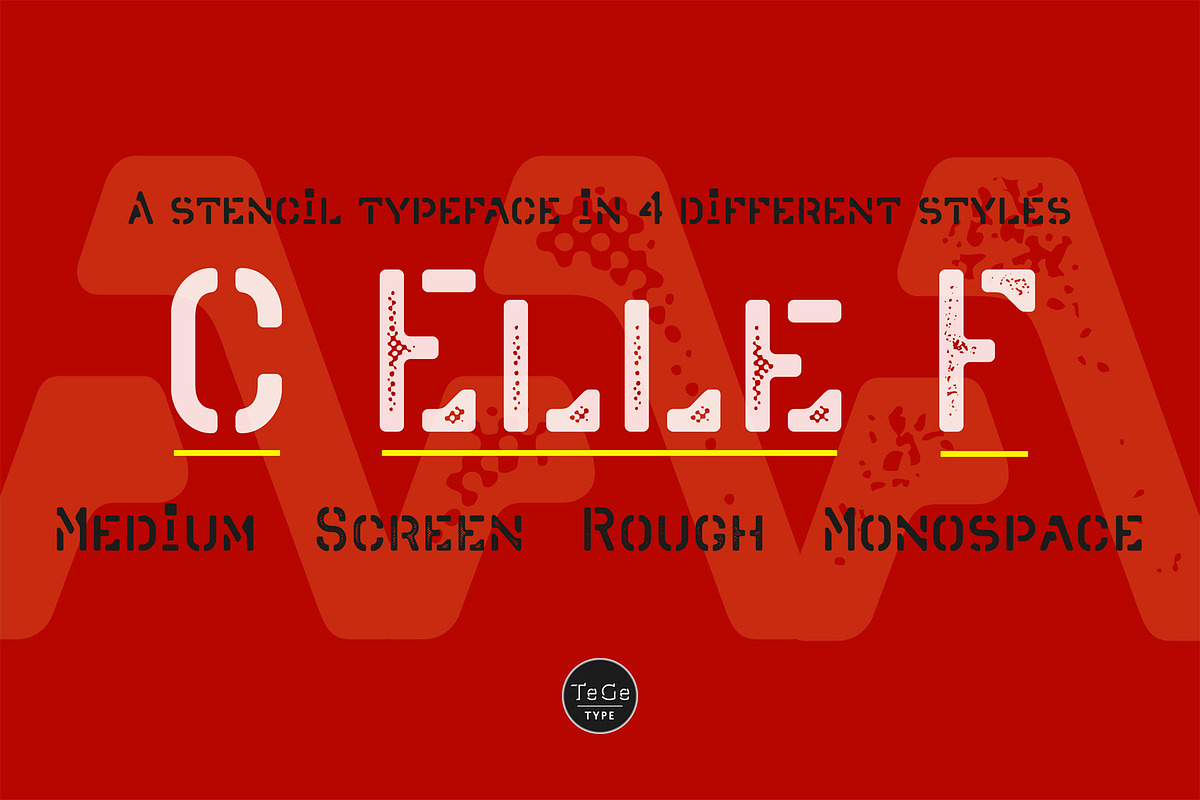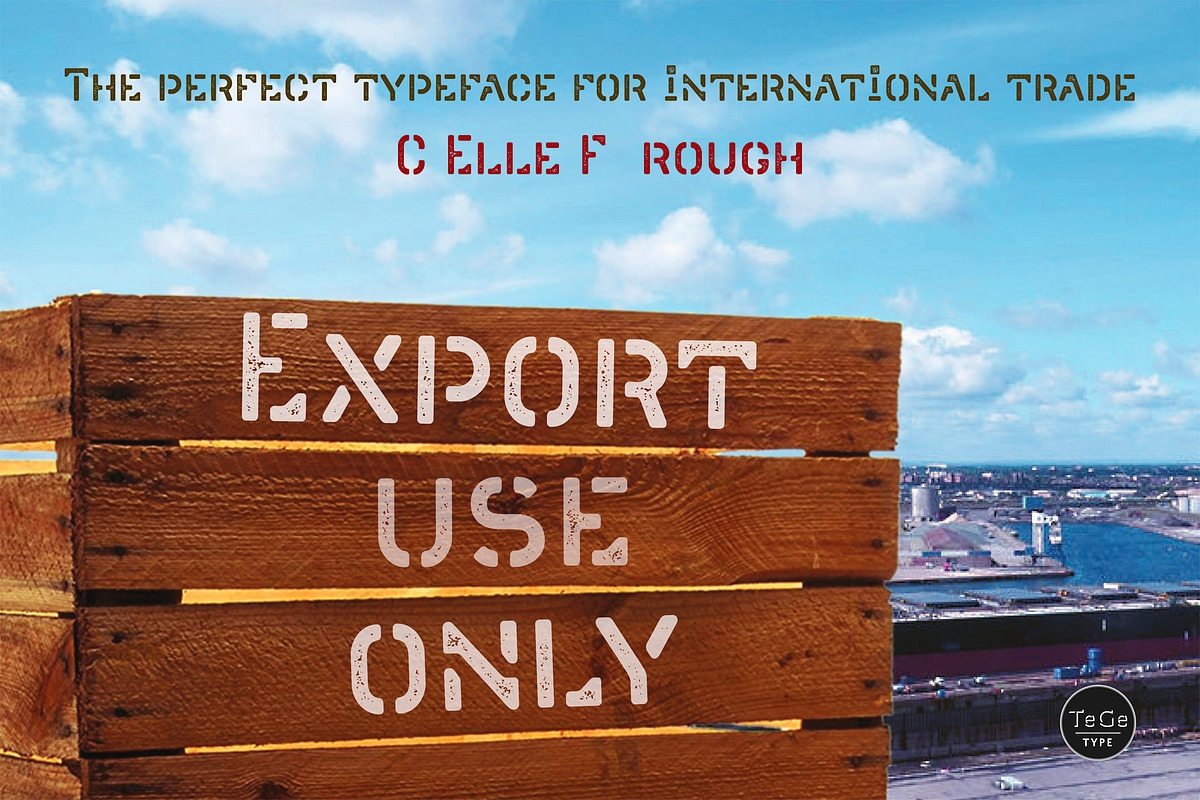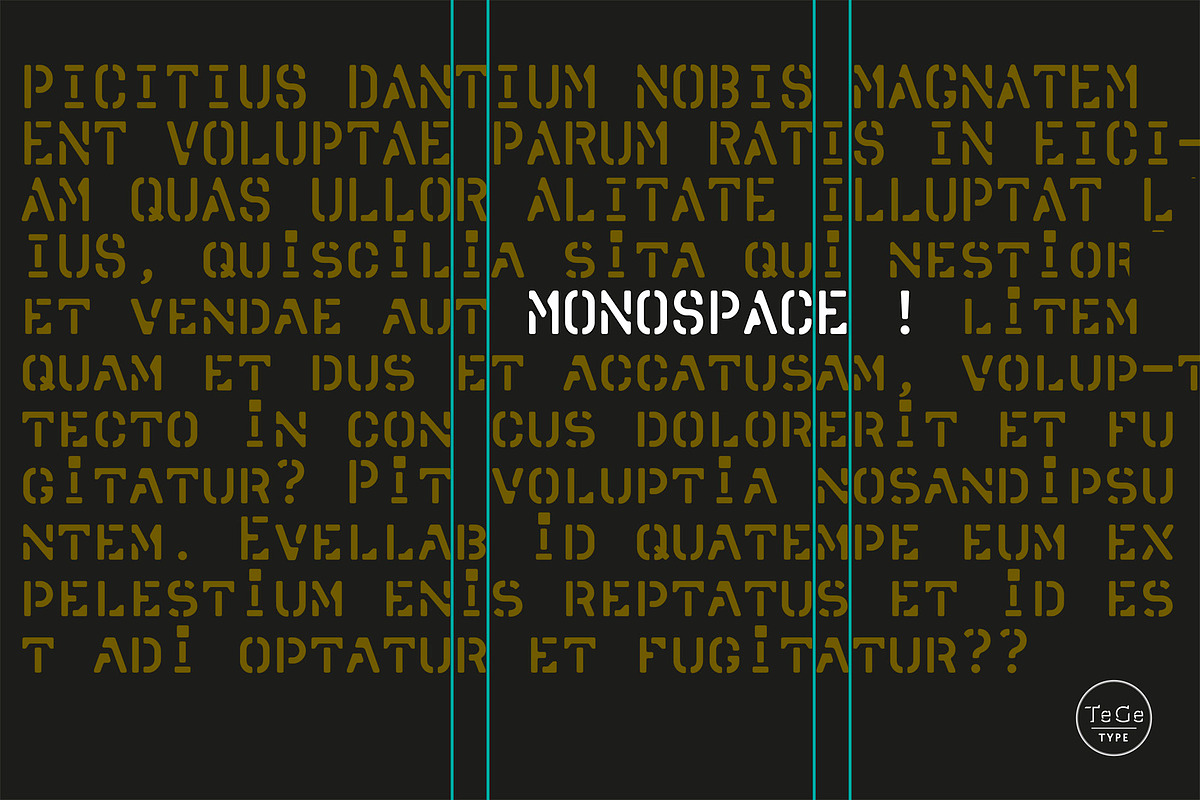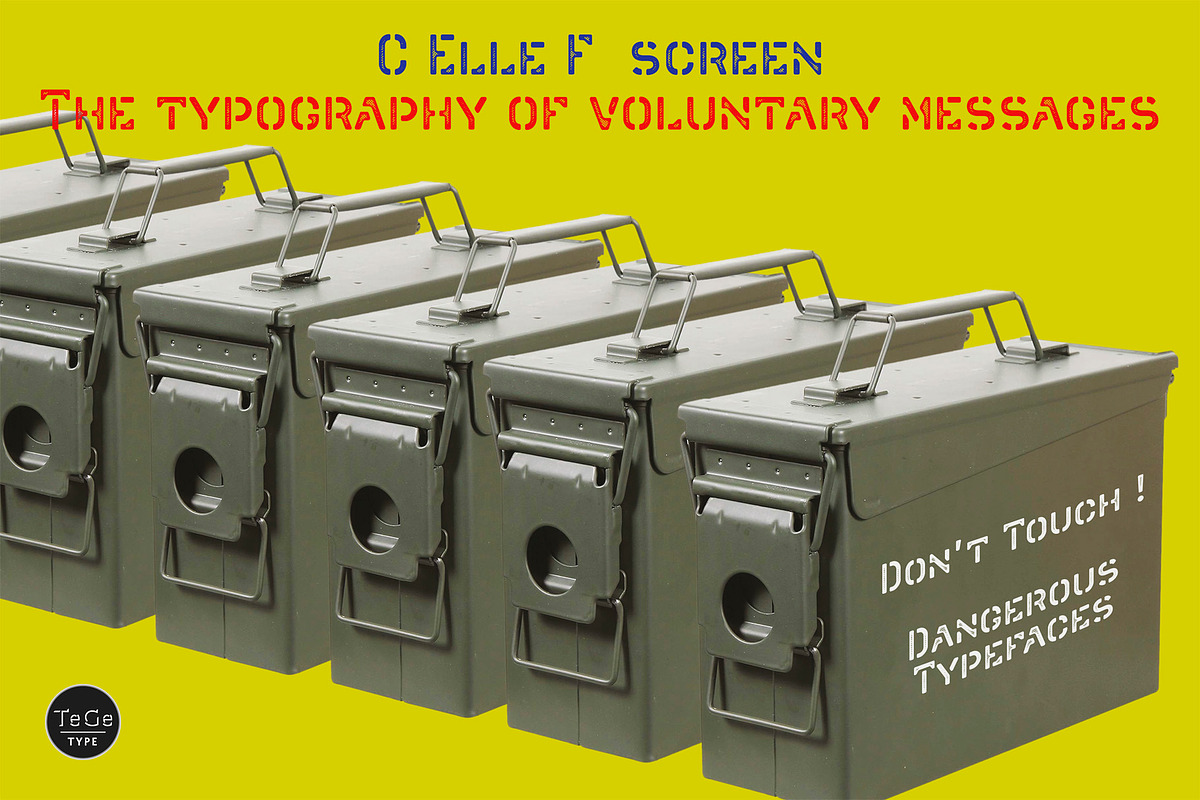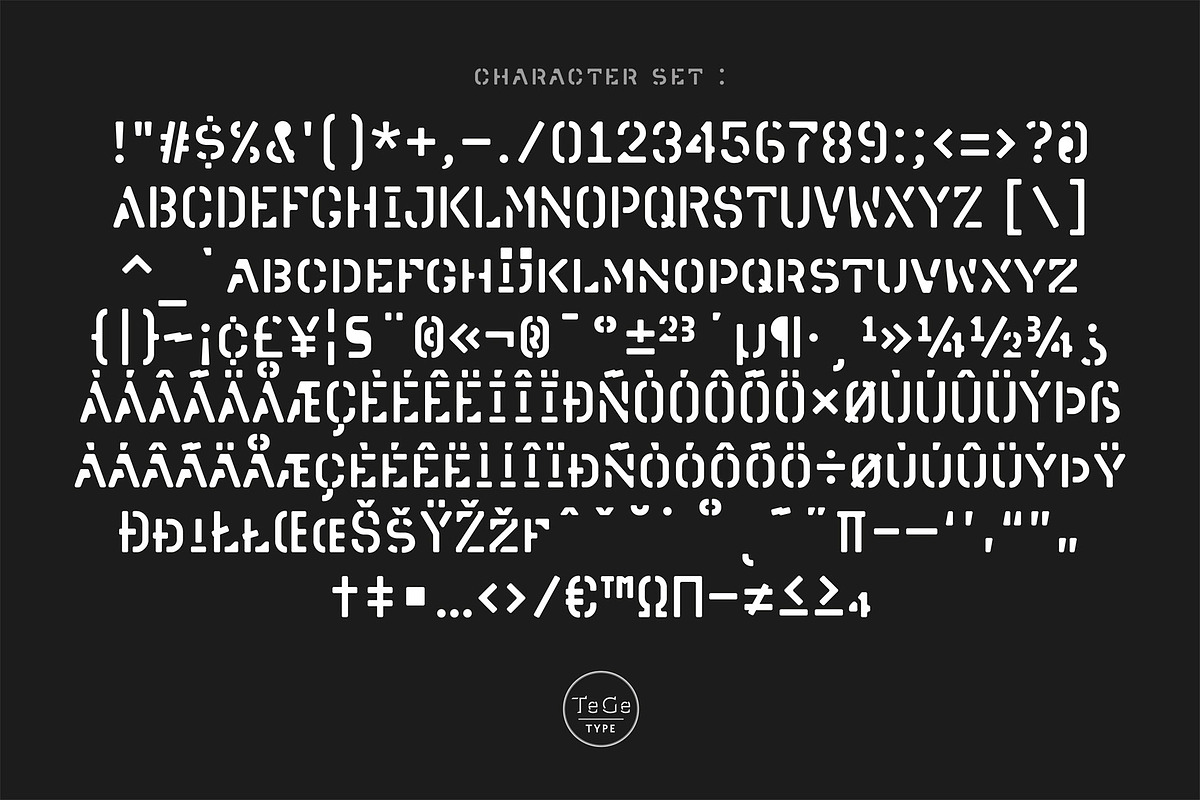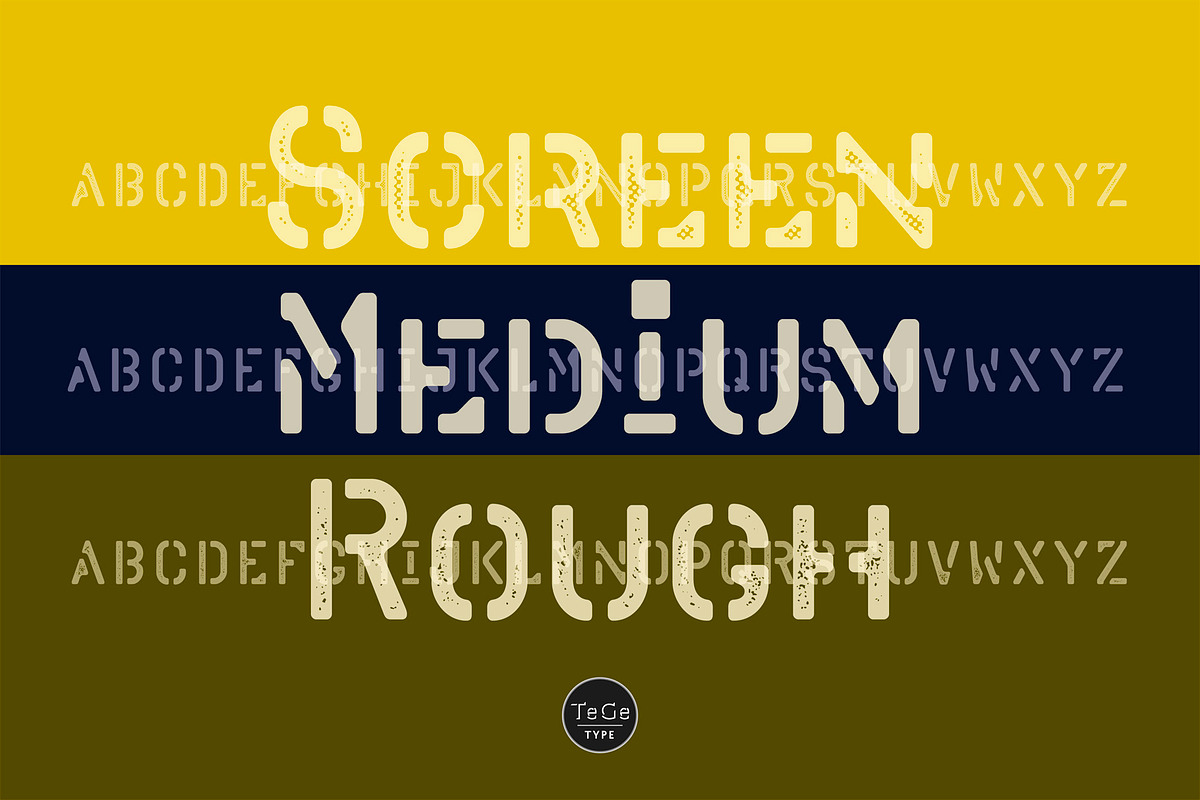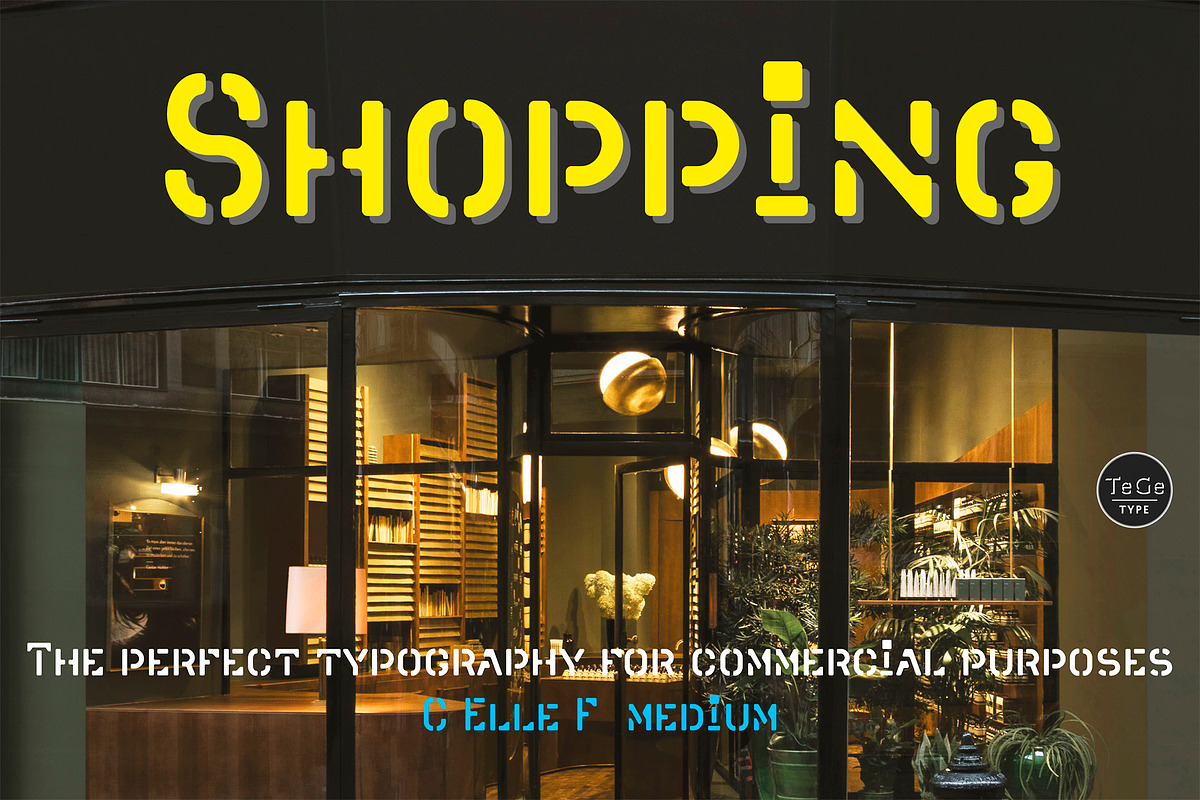
C Elle F
The "C Elle F" is a typographic family, as a stencil letter, originally intended for cutting and engraving to carry out marking and signaling work. But of course, the very characteristic shape of these letters evokes much more. This typographic family can therefore be used for communication in various fields, commercial, import-export, military, etc.